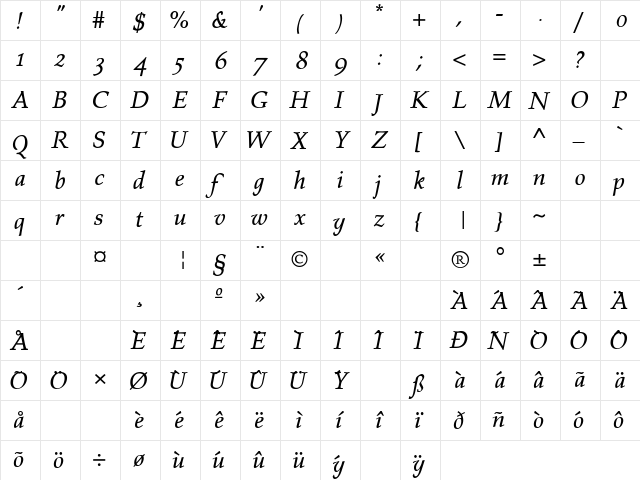
Prospero OldstyleSemiBoldItalic
Design Context for Prospero Typeface
Prospero brings classic typographic sensibility to the table — its serifs and measured letterforms reflect centuries of print heritage. Its italic angle brings a sense of urgency and motion to the letterforms. Its bold stroke weight gives it real presence on the page.
Pro Tip: Use Prospero for editorial body copy and considered headline work. Pair with a neutral sans for UI elements or captions to create a classic hierarchy.